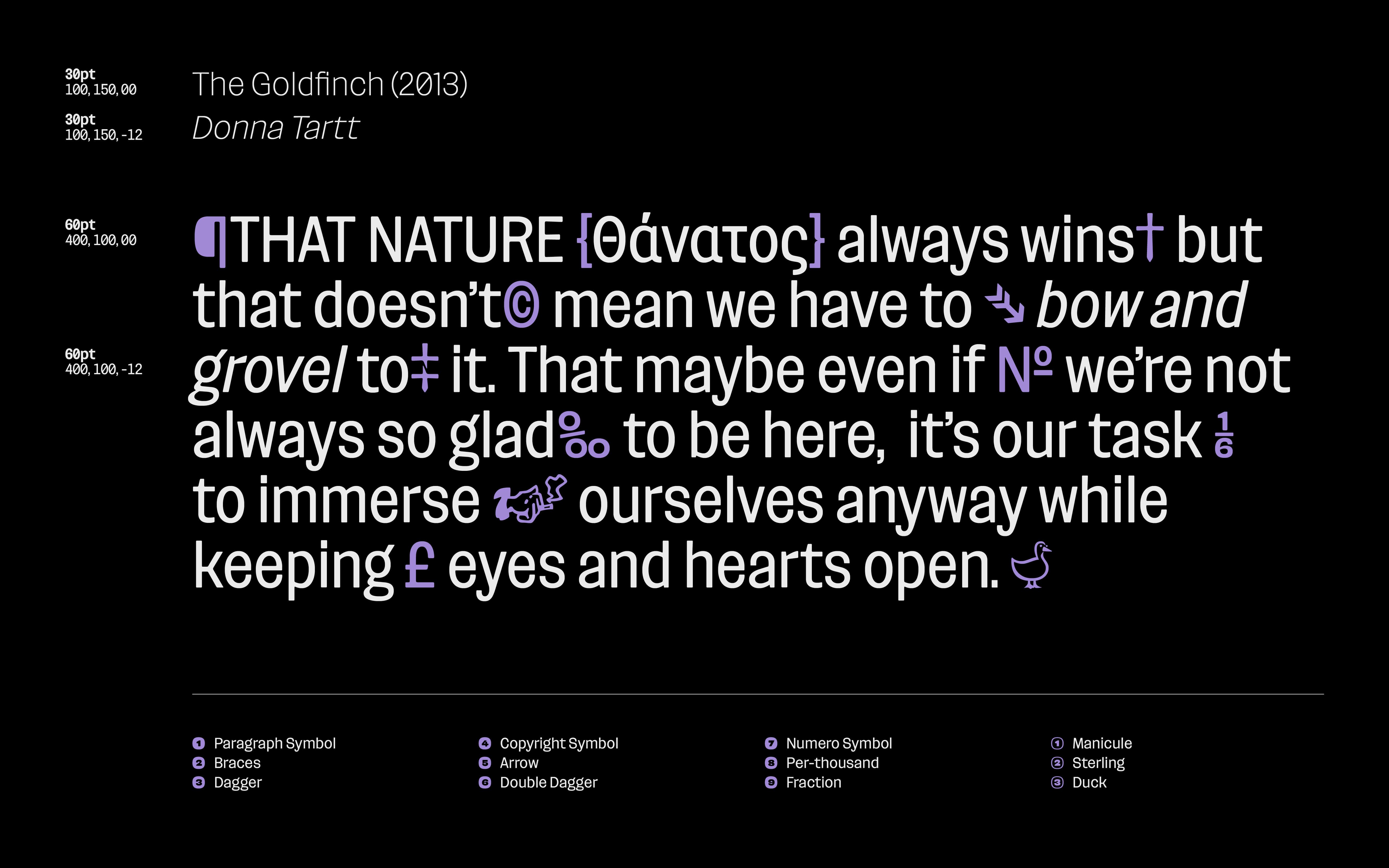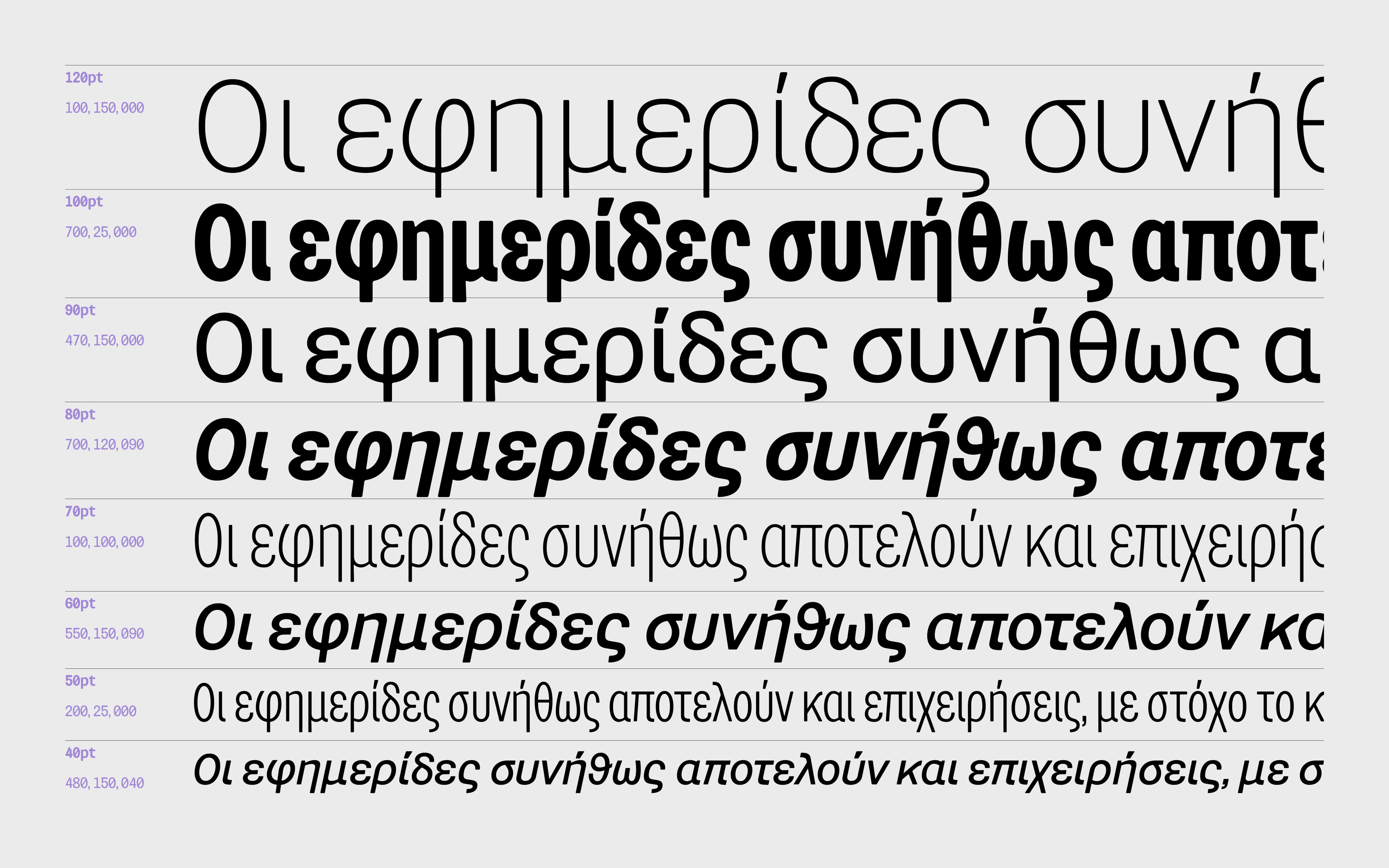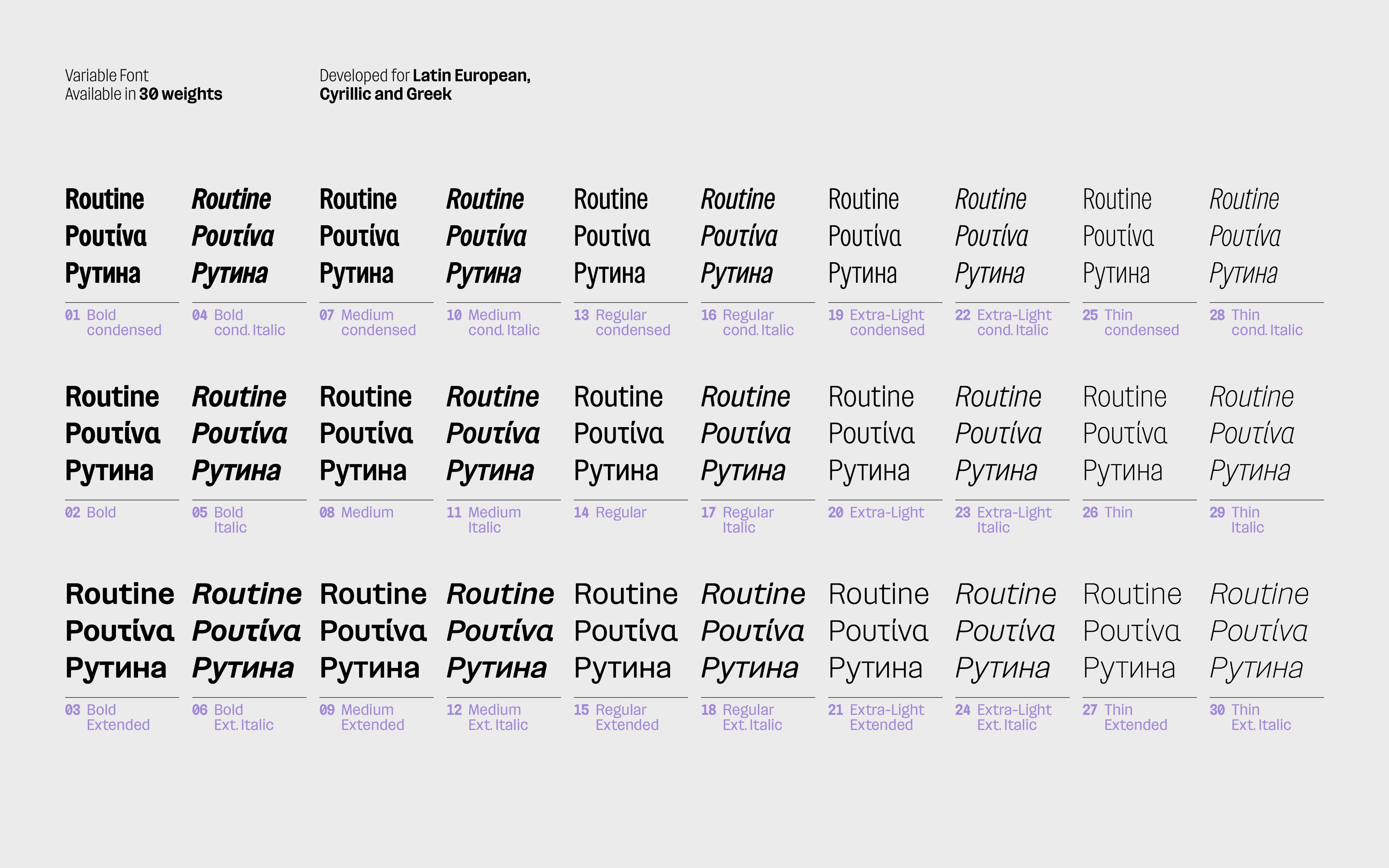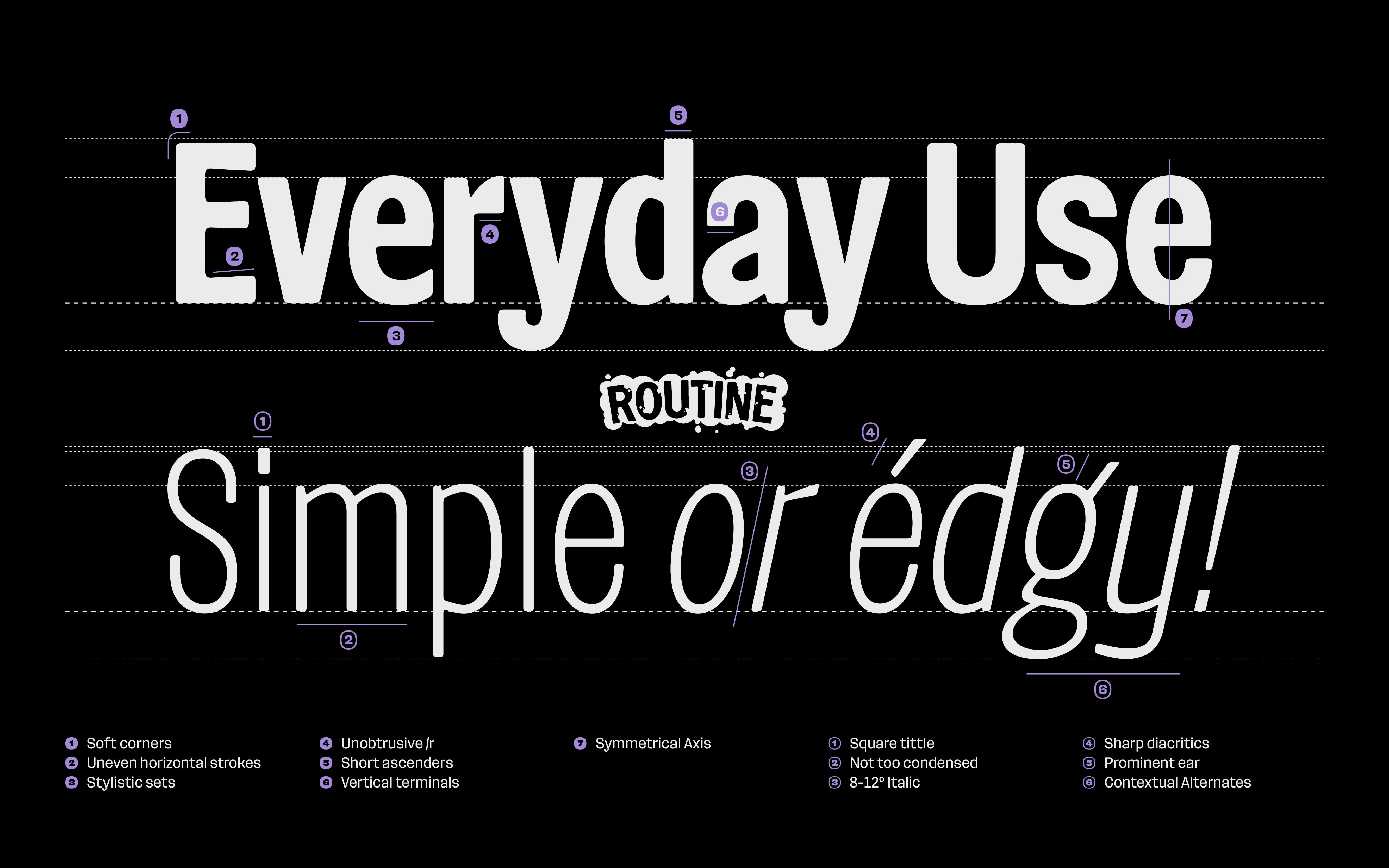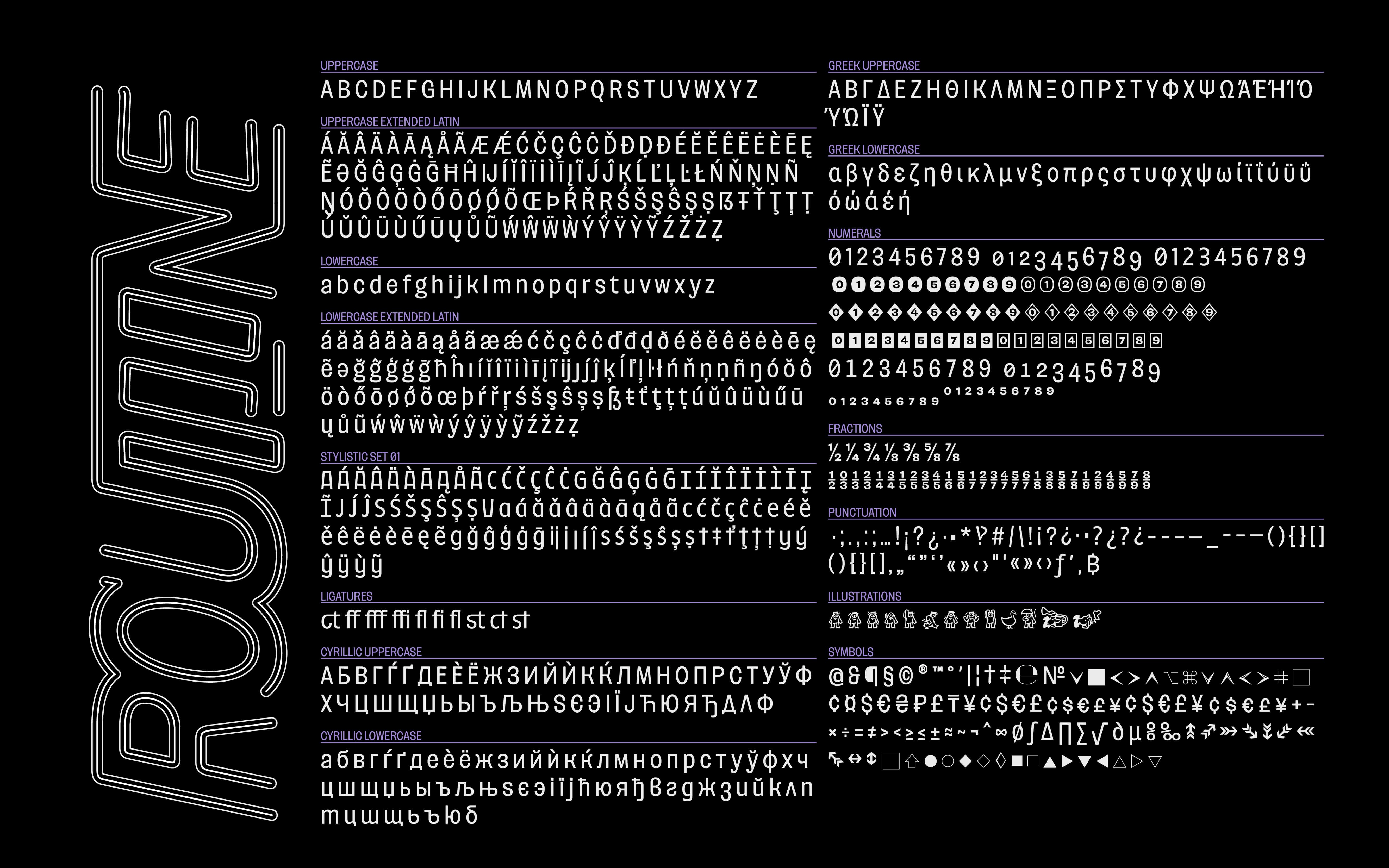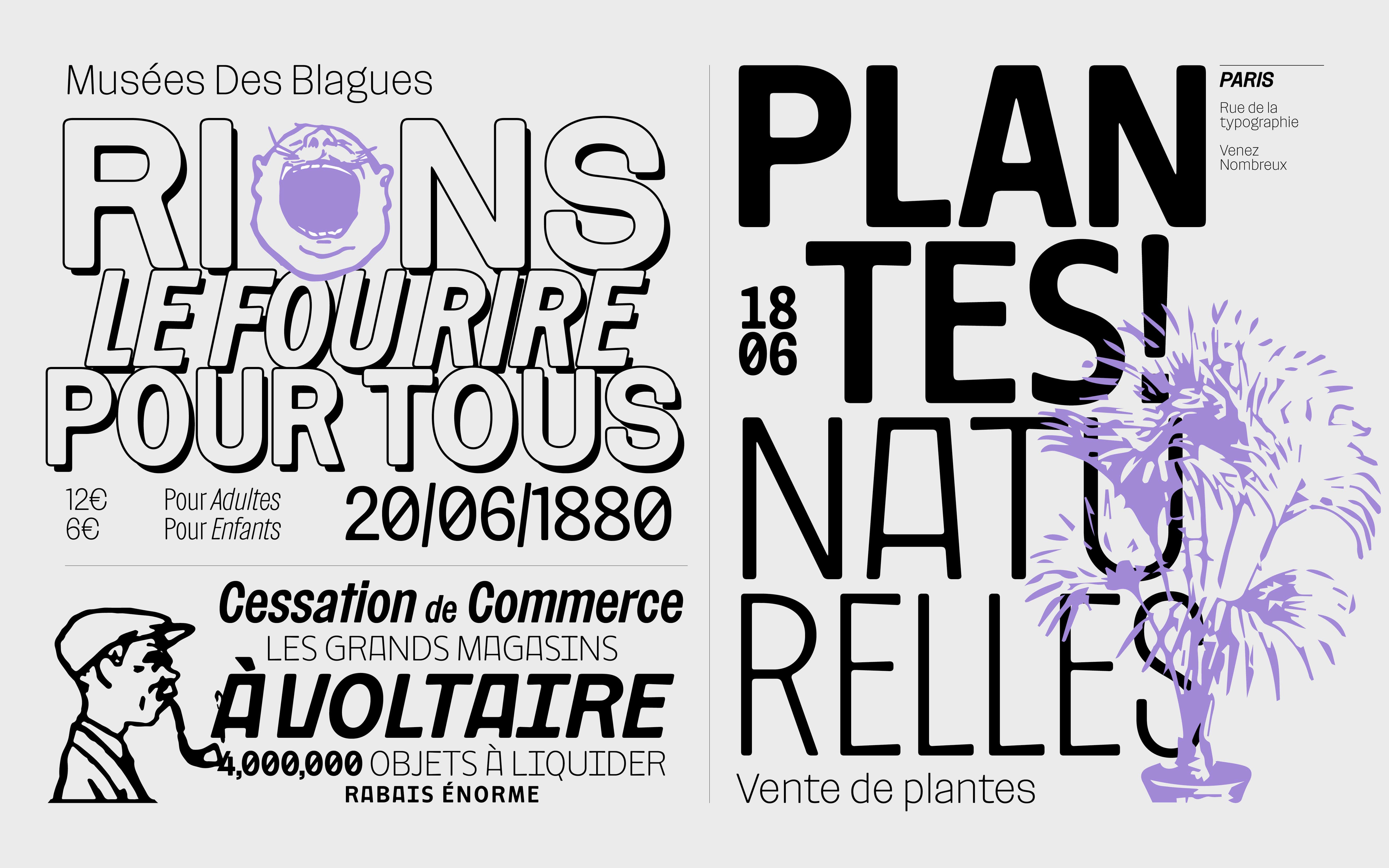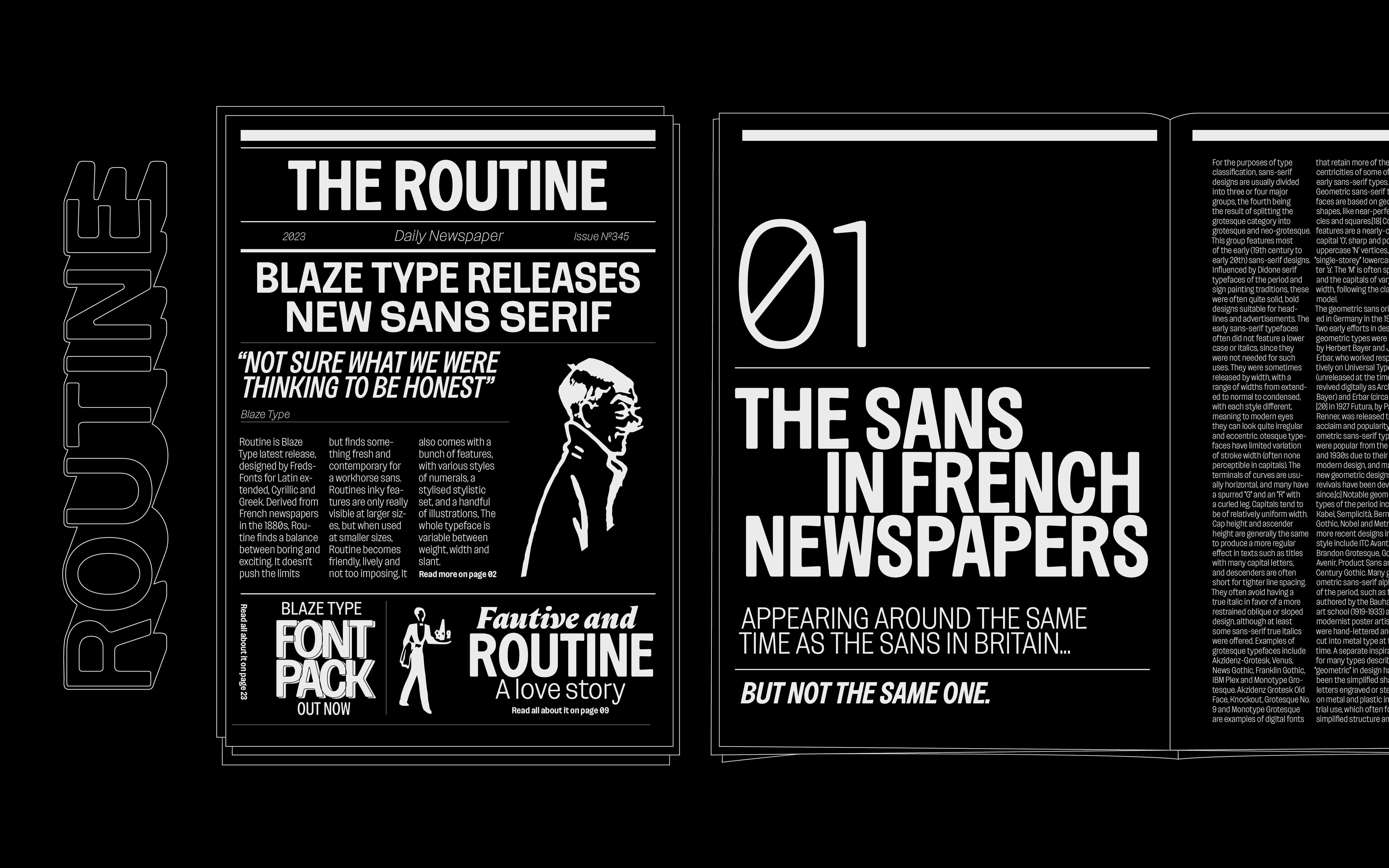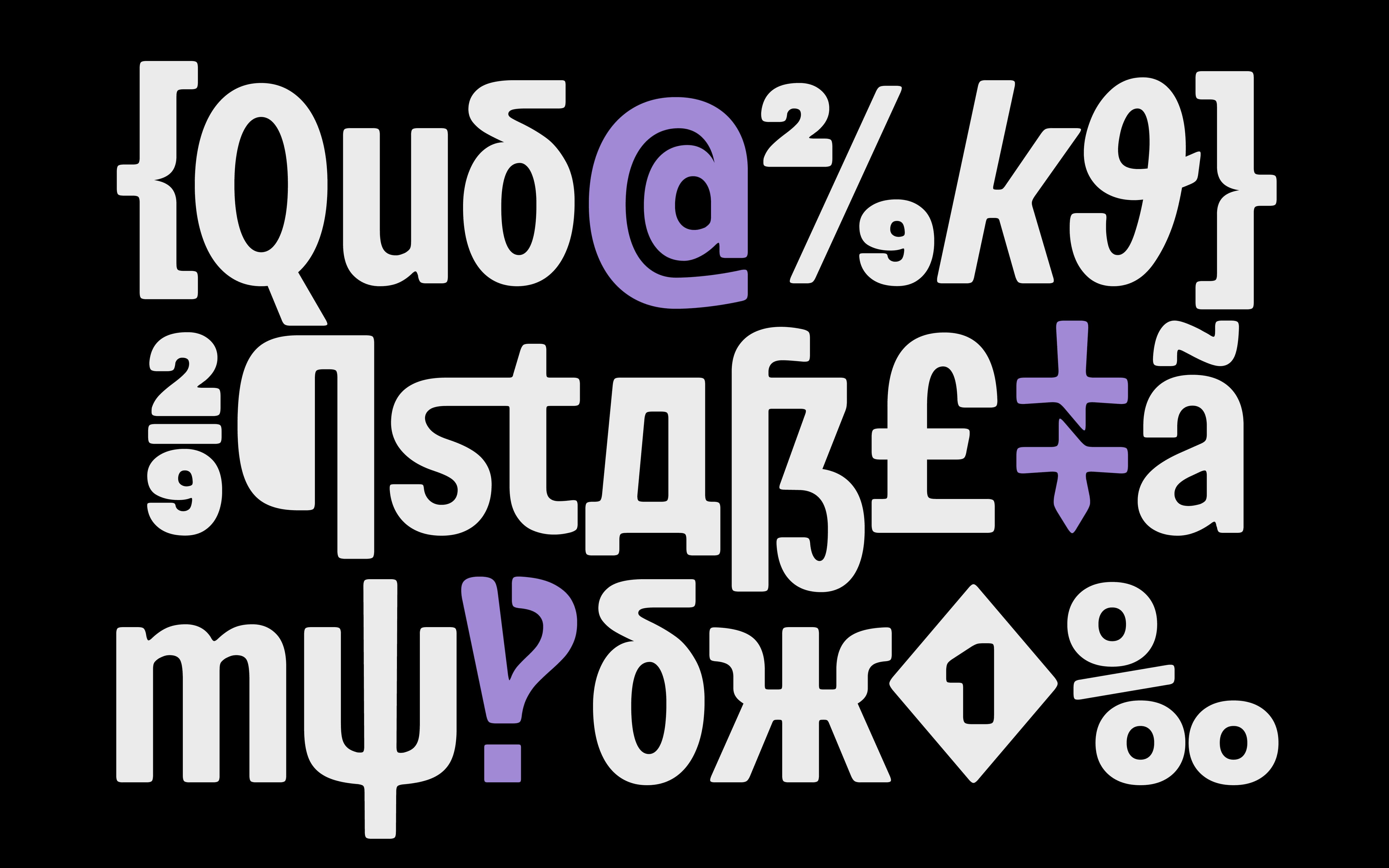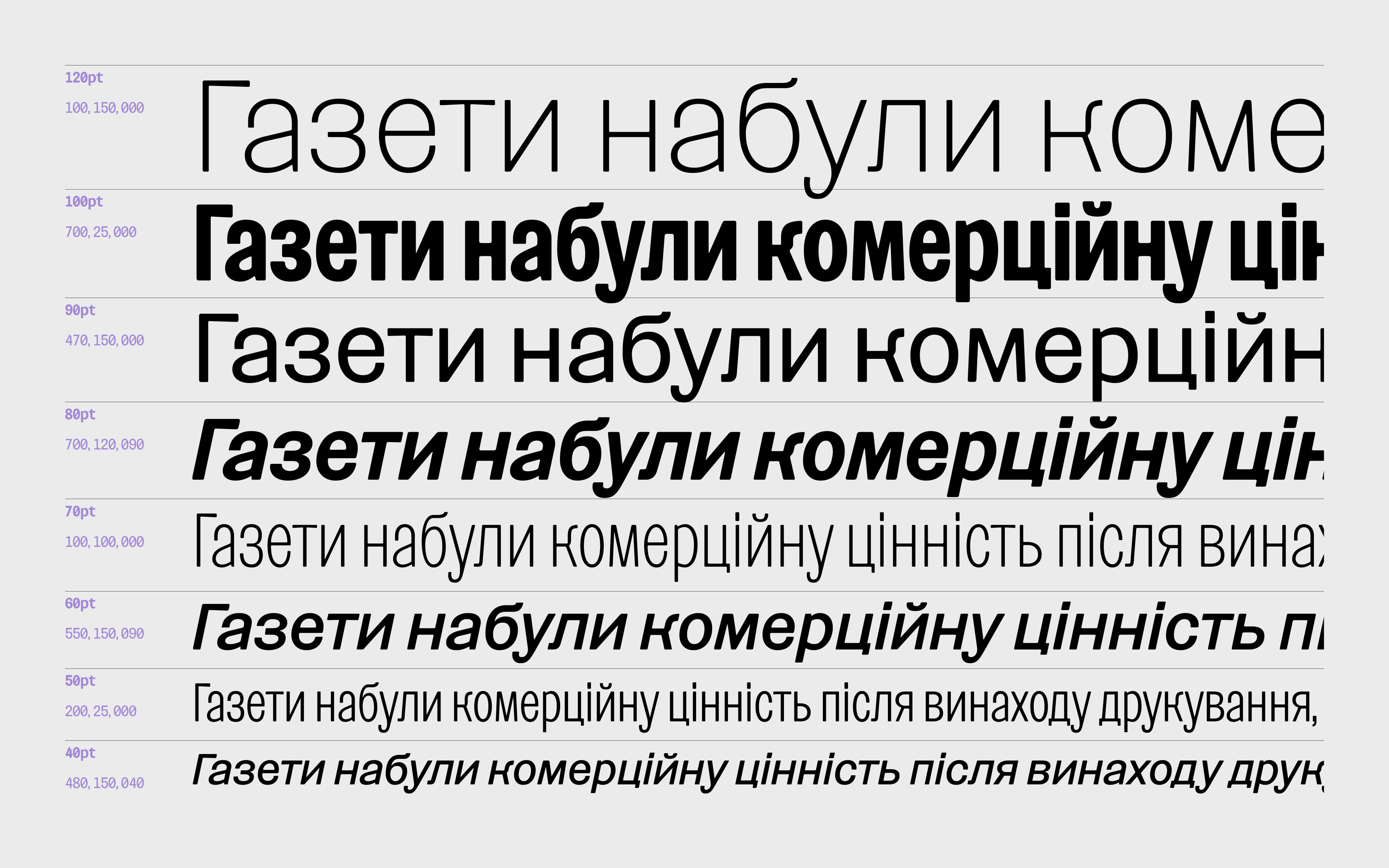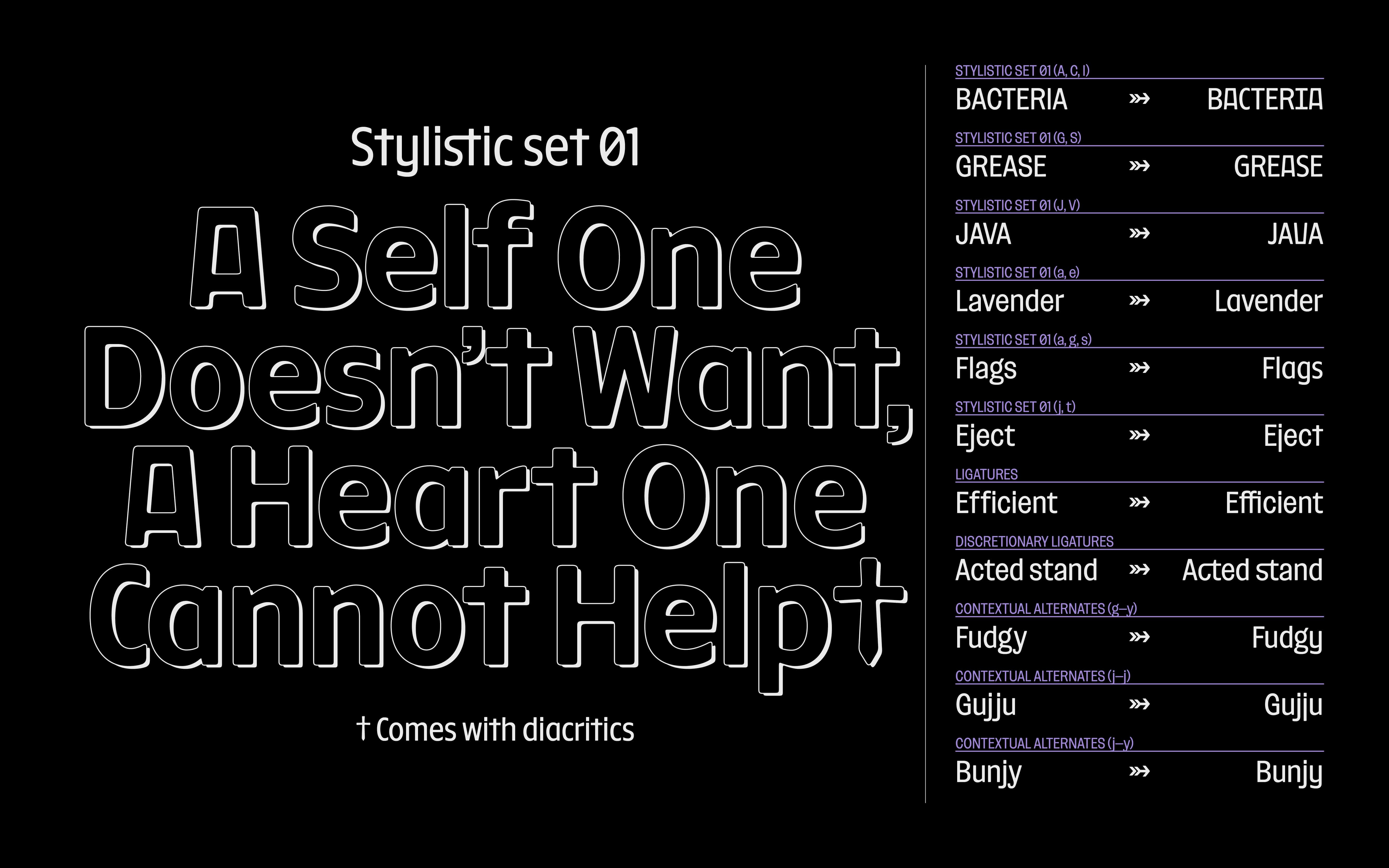
Routine
Routine is a friendly and playful sans. With soft edges, joints and curves, Routine blends seamlessly into a page. Routine is an original take on sans serifs found in French newspapers from the late 19th century. These sans come in a range of styles – grabbing the readers attention with its inky, charming features. These characteristics are conveyed into Routines contemporary and versatile design, encapsulating the broad range of styles from that period.
Routine comes in 30 different styles across weight, width and slant. Containing a wide variety of glyphs, supporting Extended Latin, Cyrillic and Greek, stylistic sets, and a handful of illustrations, Routine has something for everyone.
But this isn’t a one off typeface. As the name suggests, Routine is intended for everyday use. Conservative with its weights and widths this typeface has a legible and eye-catching design that is pared-down enough to work well at small sizes but contains enough character to stand out on a page at larger sizes.
From newspapers, magazines and posters to websites, animations and packaging, Routine radiates a sense of fun, warmth and charisma that will enrich any design.